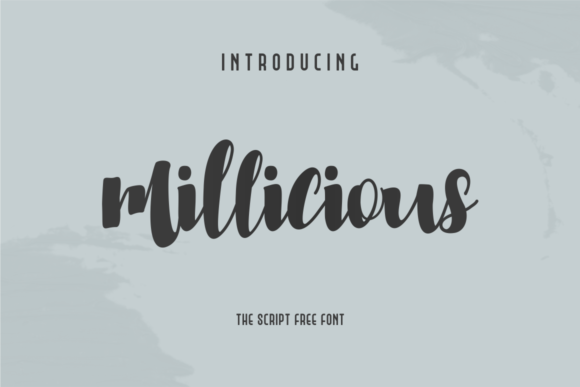
Dive into the world of Millicious Font, a captivating handwritten script that will ignite your designs with its alluring charm. Crafted by the talented hands of 24Design Studios, Millicious is a remarkable font that effortlessly balances elegance and readability.
Unleash the power of Millicious to transform your designs into captivating masterpieces. Its bold, flowing letters command attention, making it the perfect choice for headlines, logos, and any text that demands a striking presence. With Millicious, you'll capture the hearts and minds of your audience with every word.
Beyond its visual appeal, Millicious also exudes a timeless sophistication. Its carefully crafted curves and flourishes evoke a sense of authenticity and heritage. Whether you're creating invitations, packaging designs, or website banners, Millicious will infuse your work with a touch of class and timeless appeal.
With Millicious Font, you'll not only elevate your designs but also embark on a creative journey filled with inspiration and joy. Let its graceful strokes guide your imagination and create designs that speak volumes without uttering a single word.